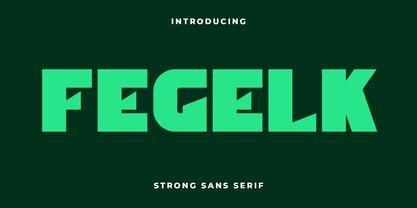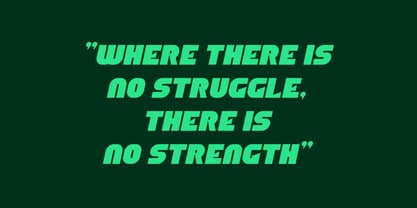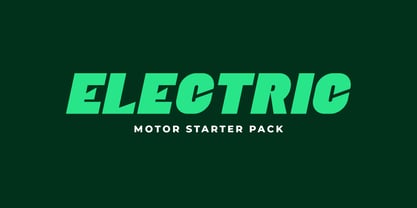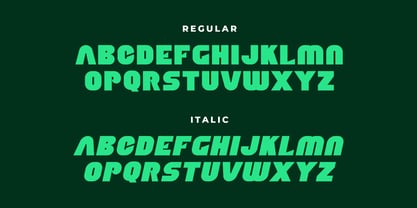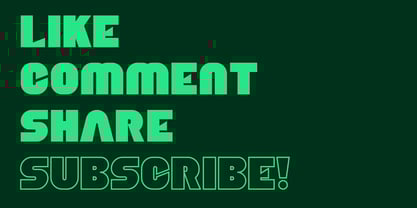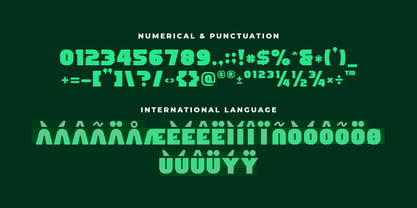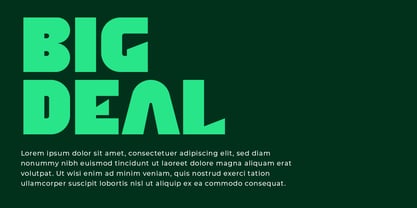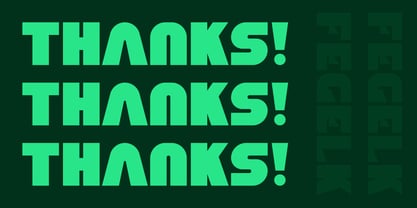
Fegelk
por Artiveko
A família de fontes Fegelk foi desenhada por Iwan Alwan e publicada pela Artiveko. Fegelk contém 2 estilos e opções de pacote familiar. Saiba mais sobre esta família
Sobre a família
Fegelk is a strong and bold font designed with powerful letterforms that command attention. Ideal for branding, sports, posters, and impactful headlines, Fegelk combines strength with a modern edge. Featuring multilingual support, ligatures, and alternates, this versatile typeface ensures readability and presence, making it the perfect choice for projects that require a bold and confident look.
Designers: Iwan Alwan
Fundição: Artiveko